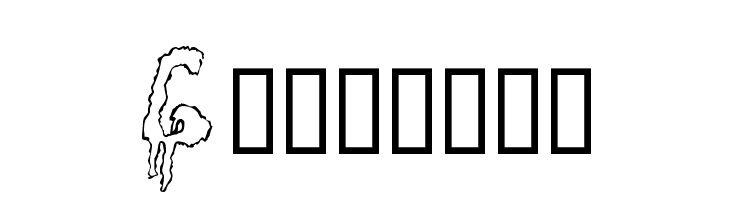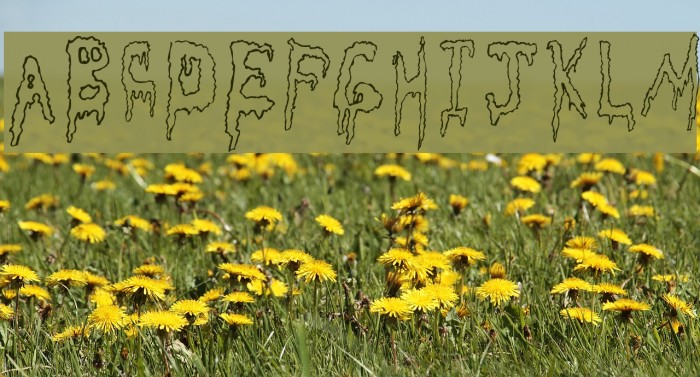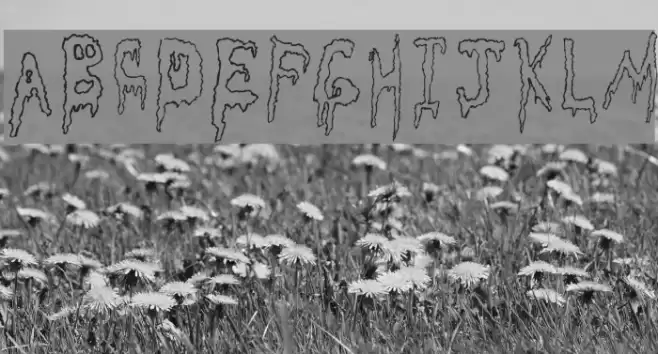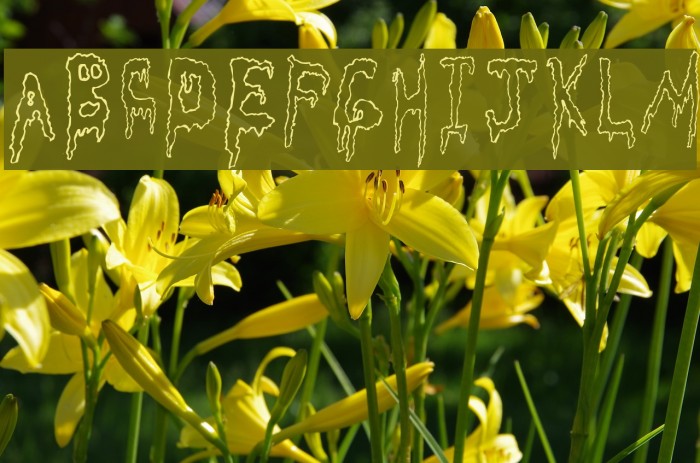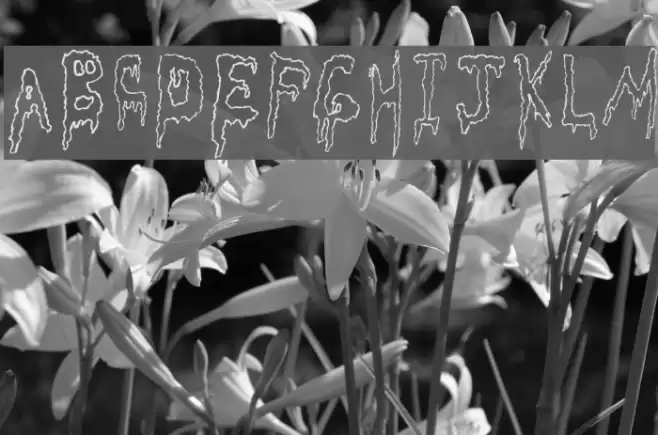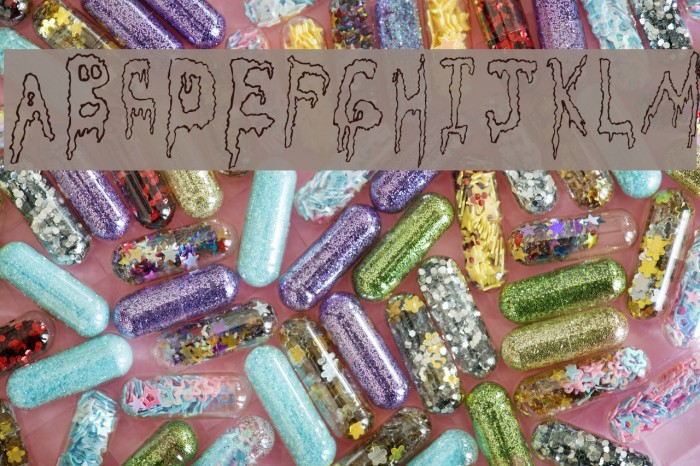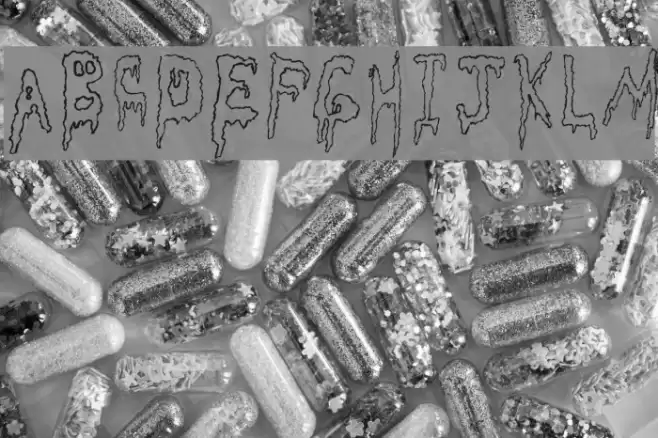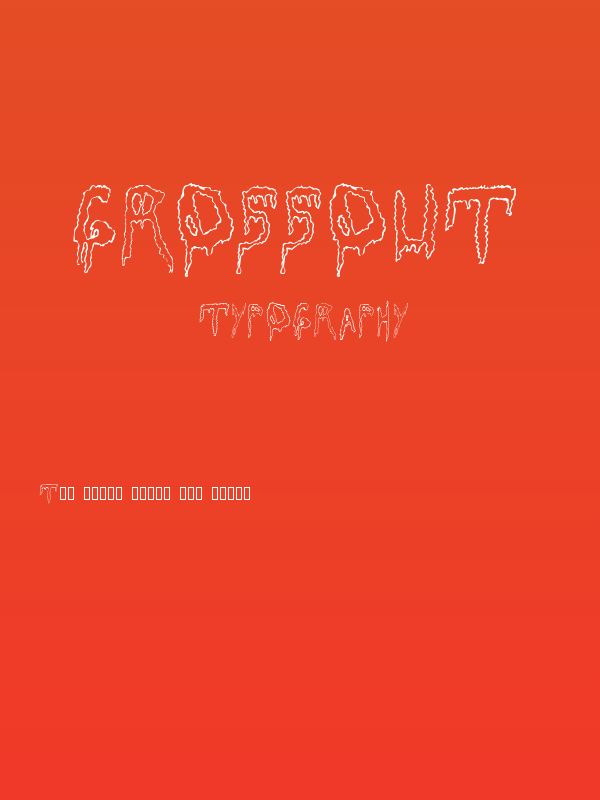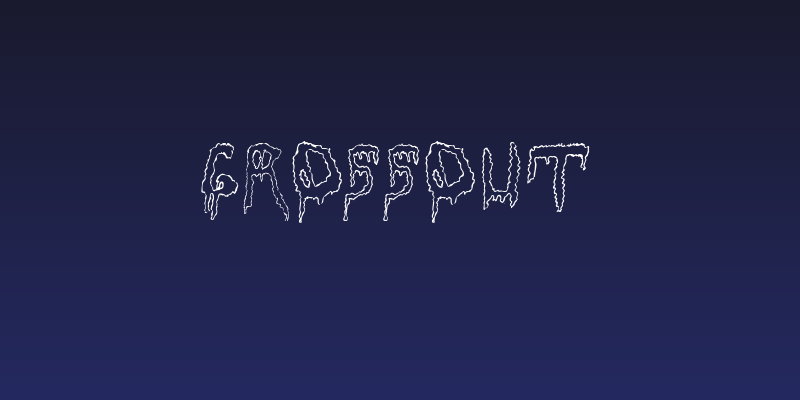
Grossout Font
Grossout Description
This font features a playful and grotesque design, with each letter appearing as if it is dripping or melting. The uppercase letters have an irregular, organic shape that gives a sense of movement and fluidity. The style is reminiscent of horror or Halloween themes, making it ideal for designs that require a spooky or eerie atmosphere. The font's unique appearance is achieved through uneven lines and exaggerated curves, adding to its unsettling charm. It is best suited for decorative purposes where a bold statement is needed.
| Proposed Projects | Perfect for Halloween posters, horror movie titles, themed party invitations, or any project requiring a creepy, unsettling vibe. |